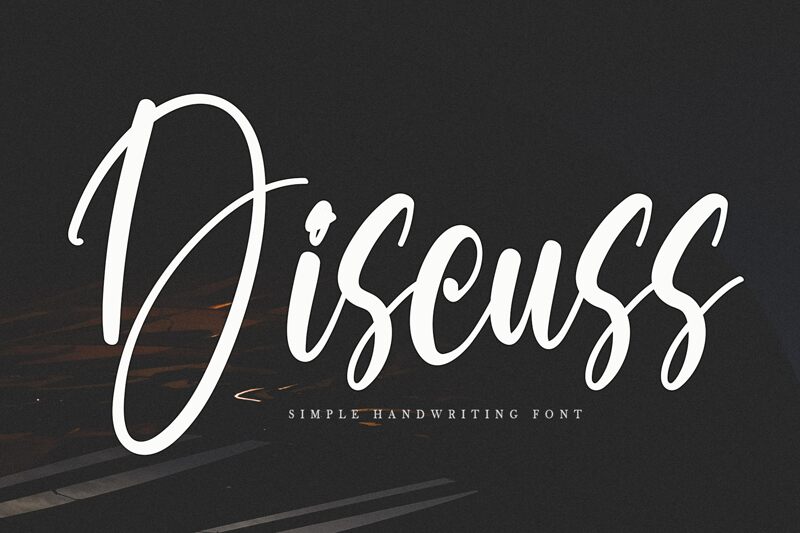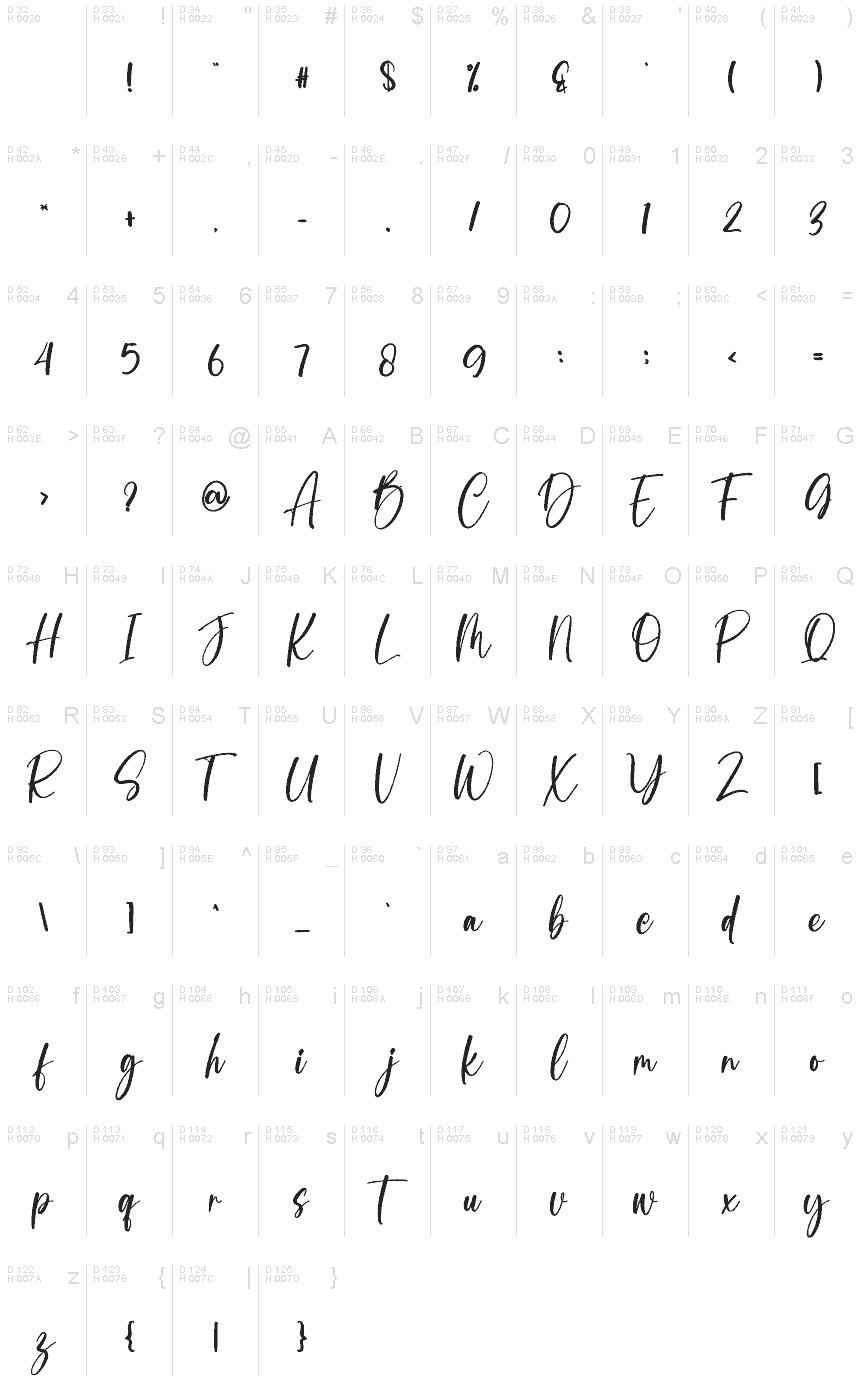
Discuss
Discuss font by Creatype Designer is a free handwritten font with a classy calligraphic influence that makes it quite elegant. It maintains clean lines and a condensed script appearance. A unique low-key modern charm allows the font to be easily applied to a wide variety of casual design projects that need an informal touch.
A free one hundred percent cursive font, Discuss fits perfectly on handwritten invitation cards for weddings, birthday parties, baby showers etc; This uppercase typeface with rounded corners can also be used on greeting cards, business cards, banners and posters. Elegant branding ideas are also possible with this pretty creation.